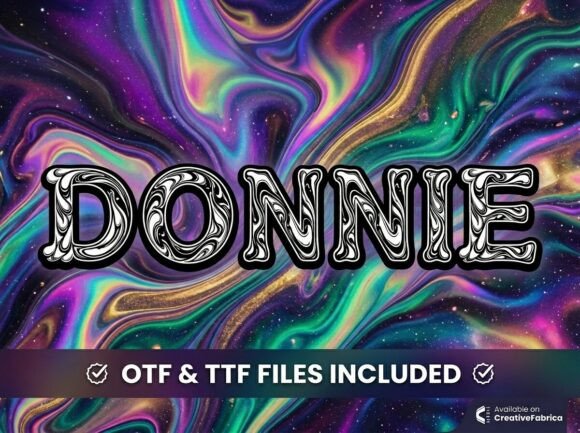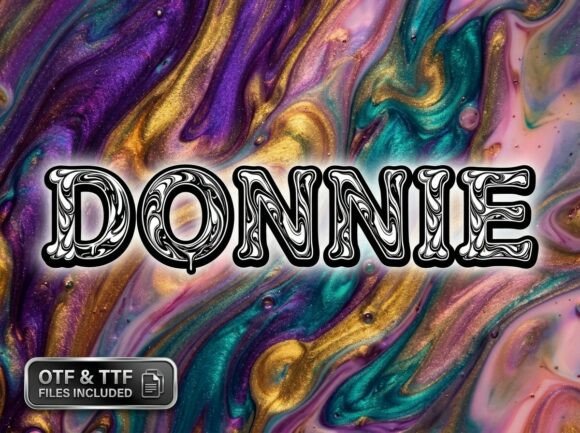
Experience a Psychedelic Journey with Donnie: The Ultimate Swirling Font
Are you ready to take your designs to a cosmic level? Look no further than Donnie, a premium swirling font that’s about to revolutionize the way you create bold, eye-catching headlines. This mesmerizing display typeface is specifically designed to captivate and hypnotize, making it the perfect choice for designers and crafters looking to add an extra dimension to their work.
The Psychedelic Charm of Donnie
Donnie’s unique design is inspired by the psychedelic art of the 60s and 70s, with a modern twist that makes it perfect for contemporary designs. The font features a hypnotic marbled texture that gives it a fluid, organic feel, as if it’s moving and swirling on the page. The bold, “trippy” silhouettes evoke the look of flowing liquid or cosmic nebulae, adding an otherworldly quality to your designs.
Key Features of Donnie
- Hypnotic Marbled Texture: Donnie’s marbled texture gives it a unique, eye-catching quality that’s sure to grab attention.
- Fluid, Trippy Silhouettes: The font’s bold silhouettes are reminiscent of flowing liquid or cosmic nebulae, adding a psychedelic touch to your designs.
- Dripping Terminals: Donnie’s terminals feature a unique dripping effect that adds to the font’s psychedelic charm.
- Intricate Internal Patterns: The font’s internal patterns add an extra layer of depth and visual interest to your designs.
Donnie is the ultimate choice for a wide range of creative projects, including:
- Music Festival Posters: Create eye-catching posters that capture the essence of your music festival with Donnie’s bold, psychedelic design.
- Edgy Streetwear Branding: Add a touch of avant-garde style to your streetwear brand with Donnie’s unique, swirling font.
- Psychedelic Album Art: Create stunning album art that reflects the psychedelic sound of your music with Donnie’s mesmerizing design.
- Creative Social Media Headers: Stand out on social media with Donnie’s bold, eye-catching headlines that are sure to grab attention.
Crafting a Brand Identity with Donnie
Donnie is not just a font – it’s a statement piece that can elevate your brand identity to new heights. Whether you’re creating a modern lounge or a standout merchandise line, Donnie brings an unmistakable sense of movement, energy, and avant-garde style to your headlines. With Donnie, you can:
- Create a Memorable Brand Image: Donnie’s unique design makes it easy to create a memorable brand image that stands out from the crowd.
- Add an Edgy Touch: Add a touch of edginess to your brand with Donnie’s bold, psychedelic design.
- Express Your Creativity: Donnie’s versatility makes it easy to express your creativity and bring your brand vision to life.
Donnie is more than just a font – it’s an experience. With its mesmerizing swirling design, hypnotic marbled texture, and fluid, “trippy” silhouettes, Donnie is the ultimate choice for designers and crafters looking to add a psychedelic touch to their work. Whether you’re creating music festival posters, edgy streetwear branding, psychedelic album art, or creative social media headers, Donnie is the perfect choice for anyone looking to make a statement. So why wait? Experience the psychedelic journey of Donnie today and take your designs to a cosmic level!